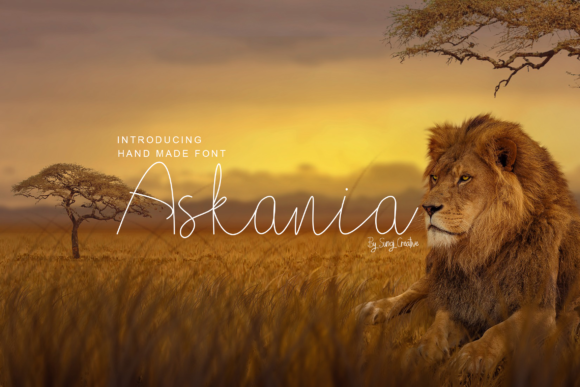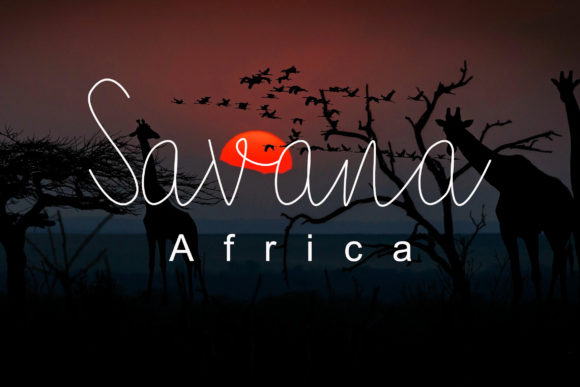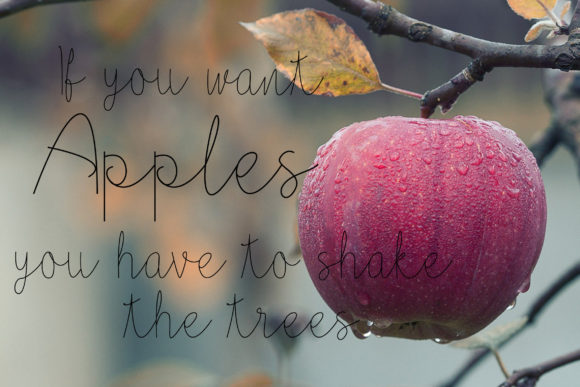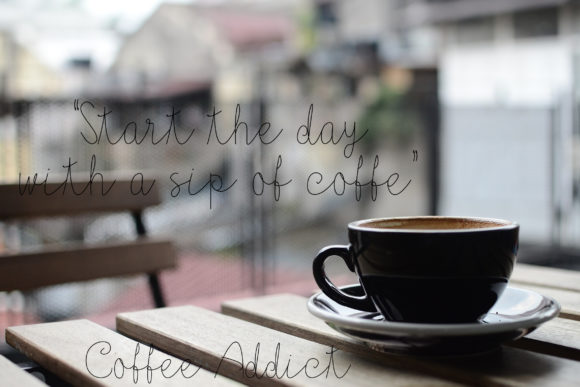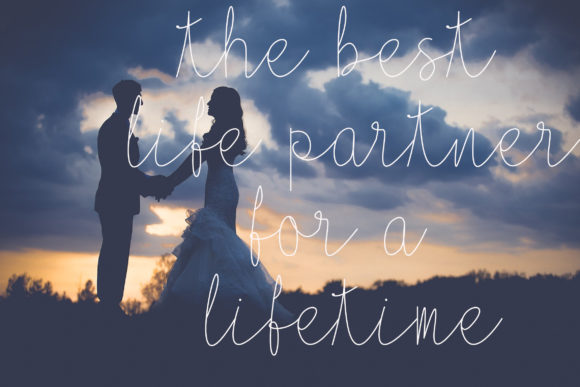
Askania Font
About Askania Font
Askania is a unique script with a cute feel. Use it to add a charming, authentic feel to a wide range of design ideas.